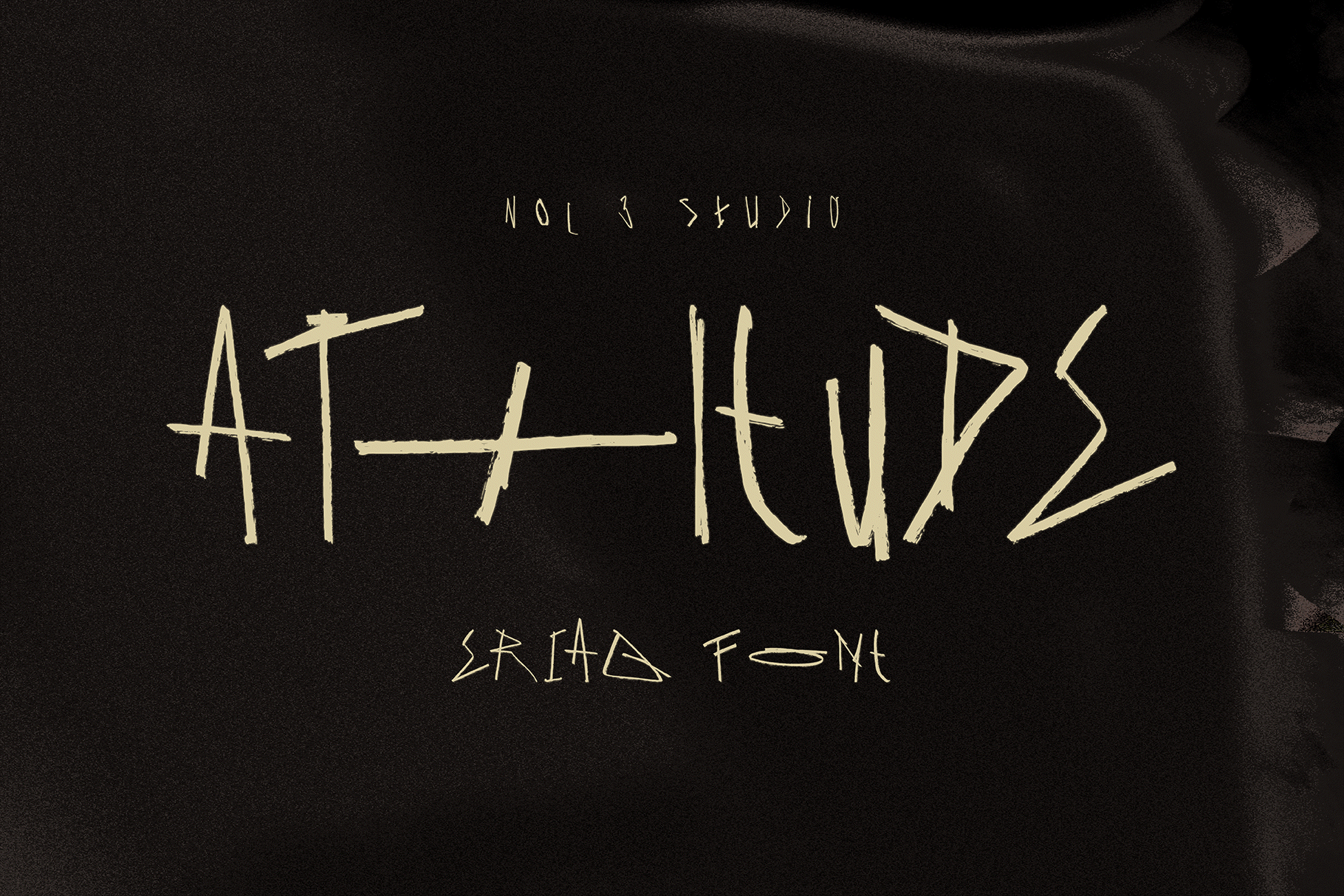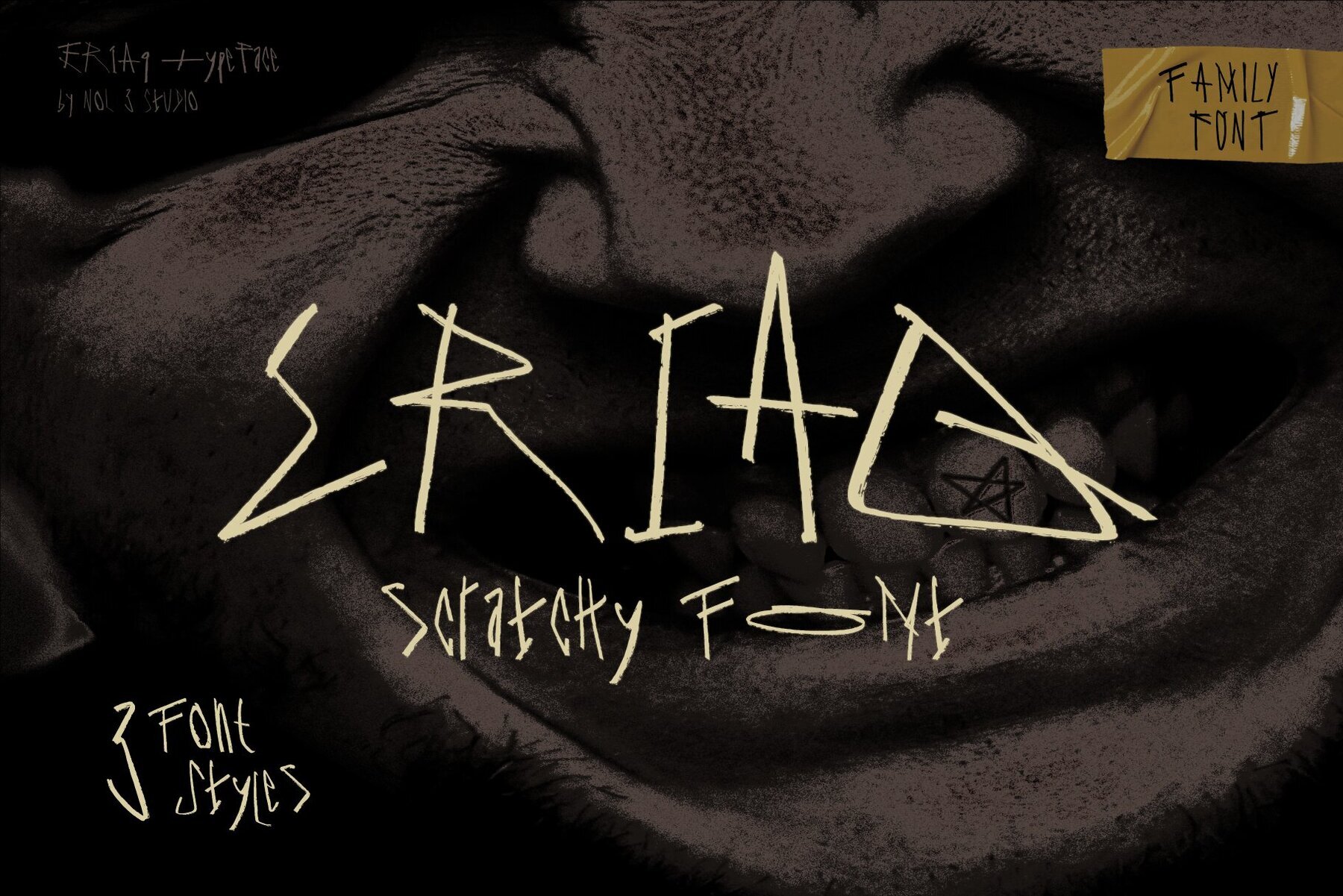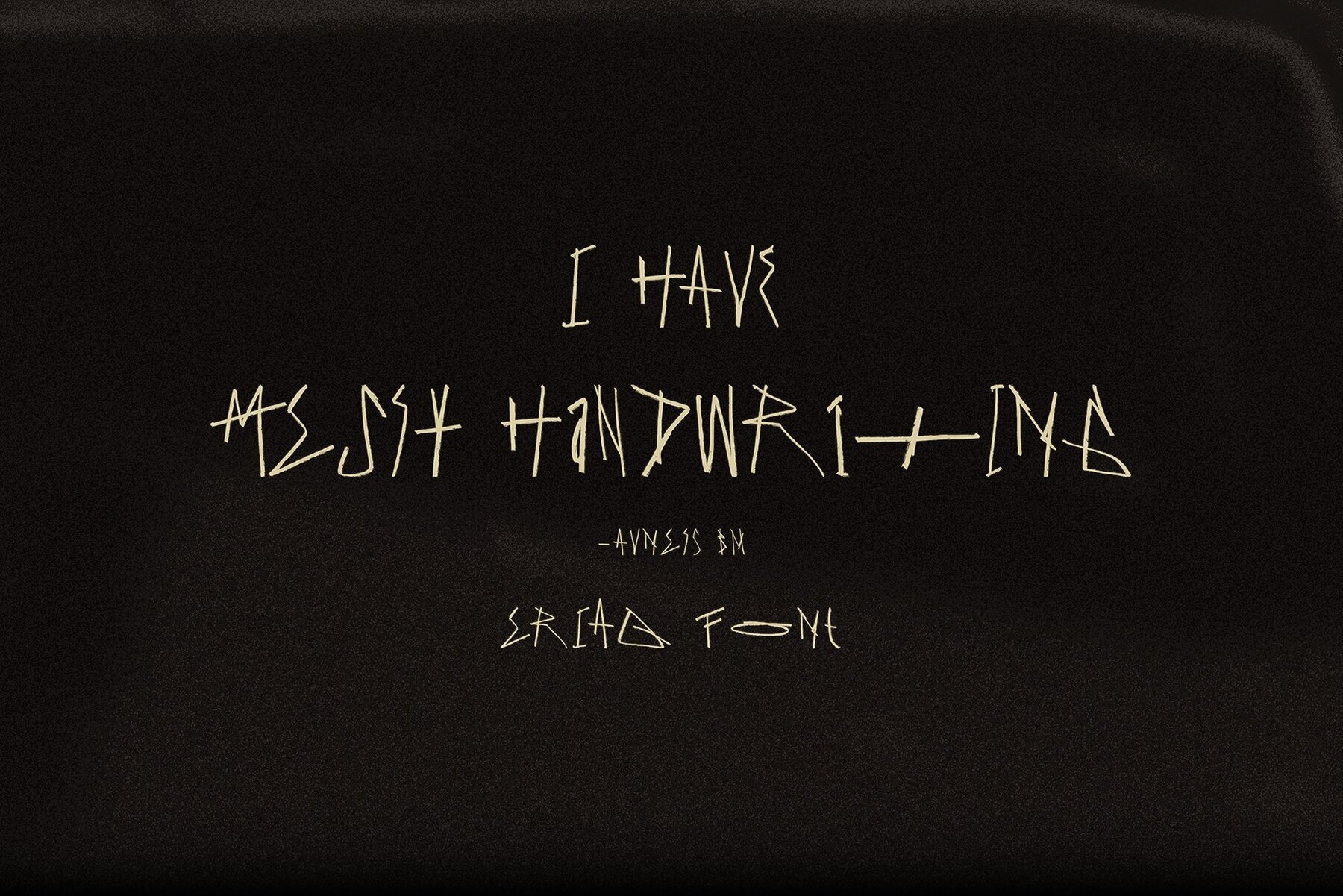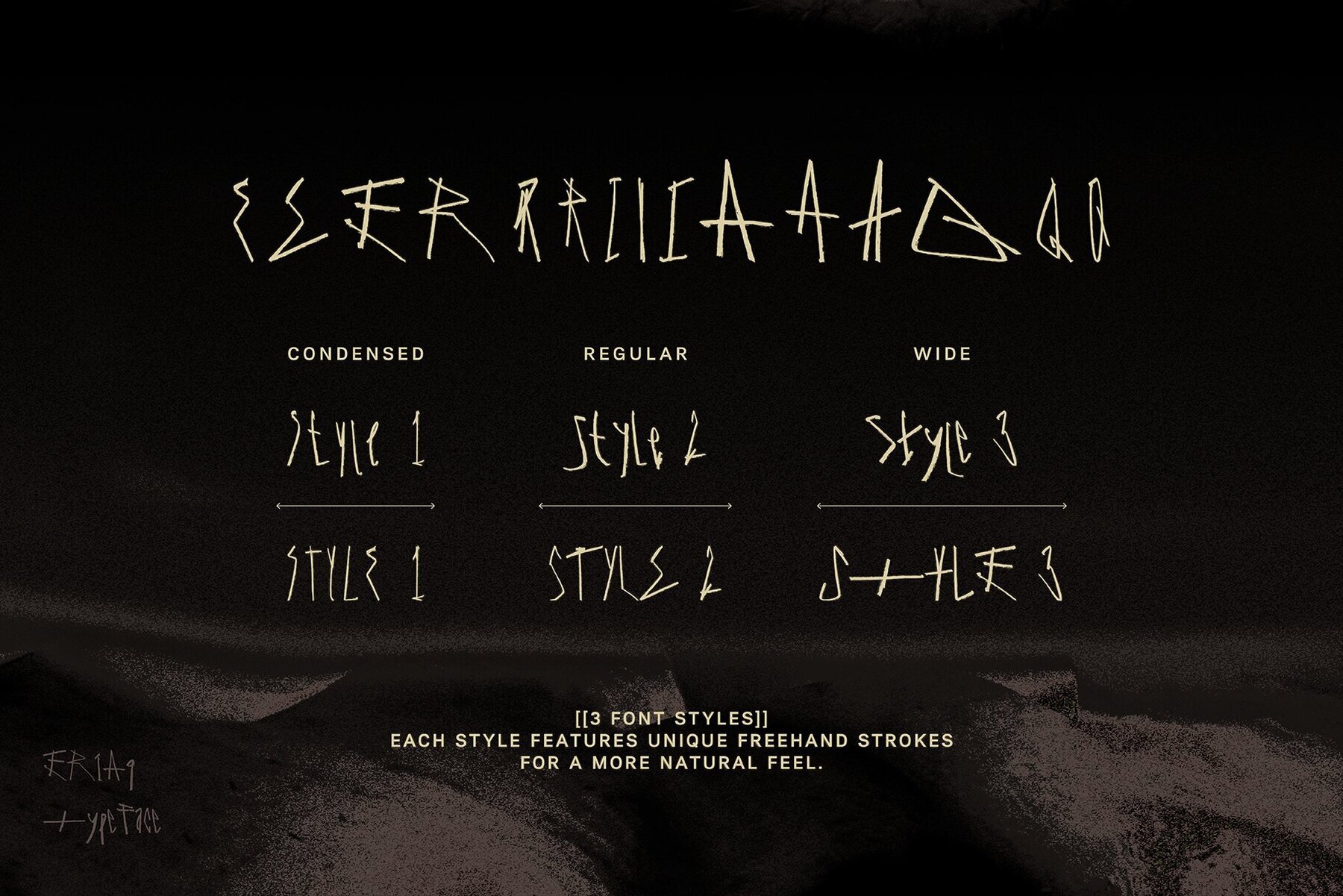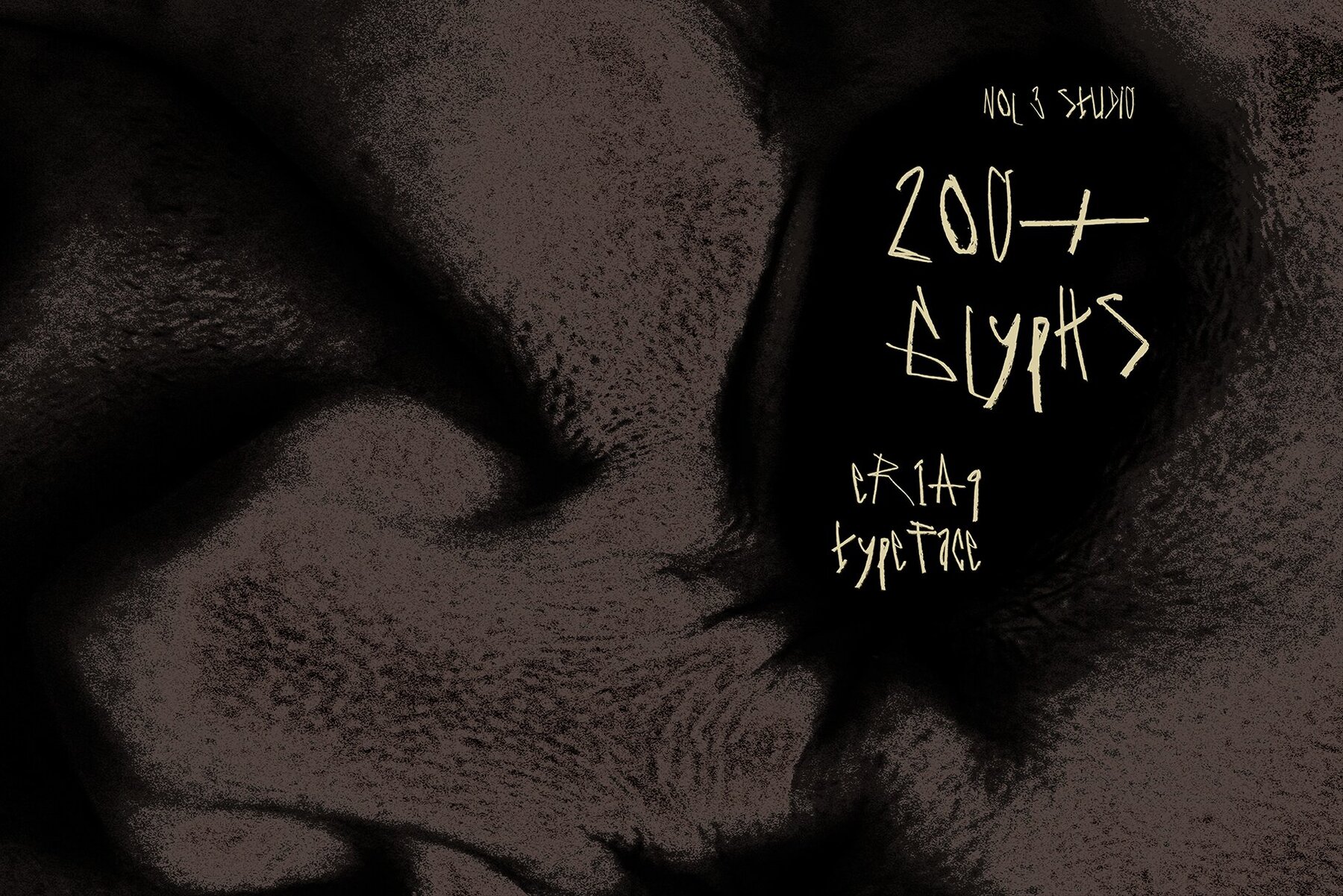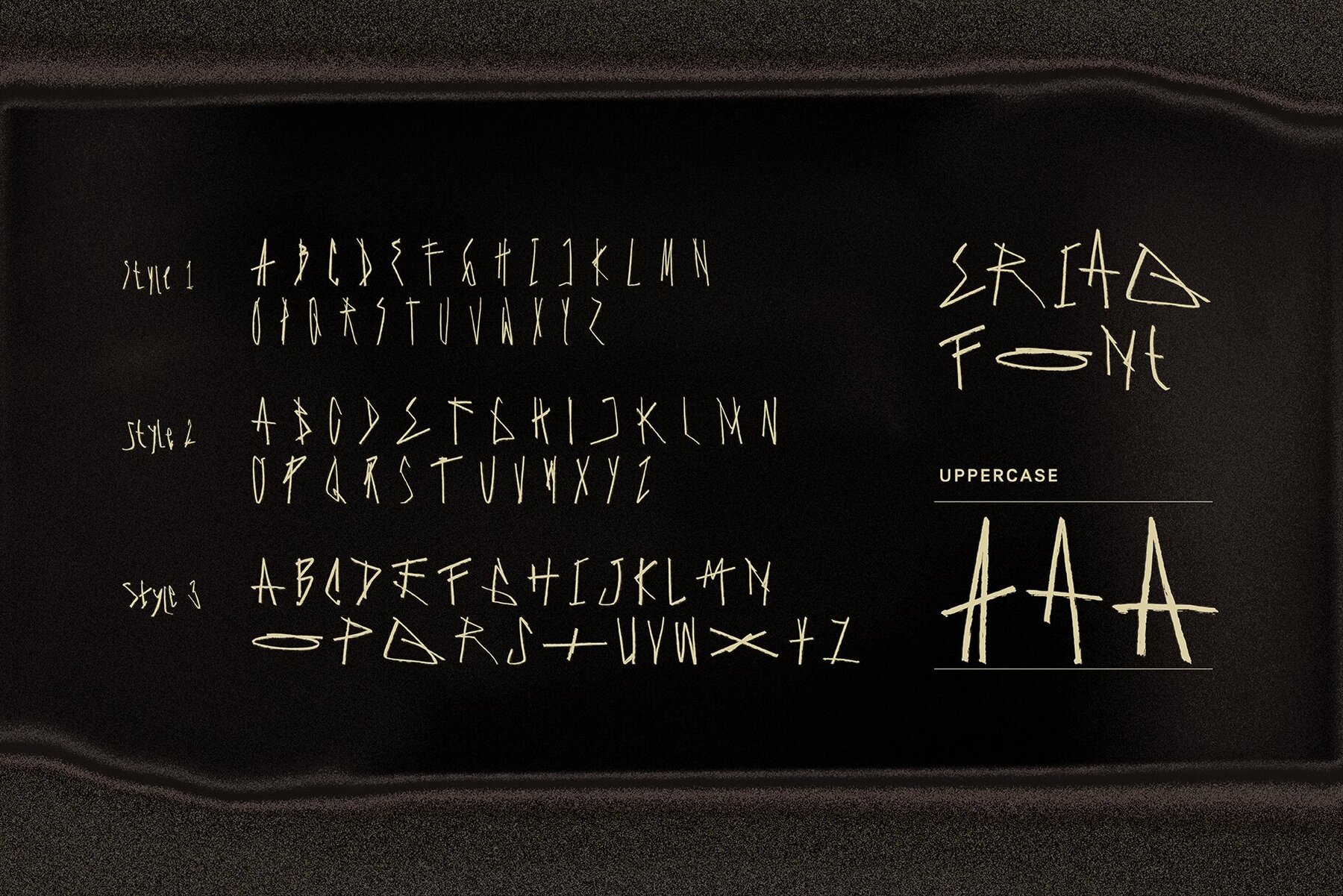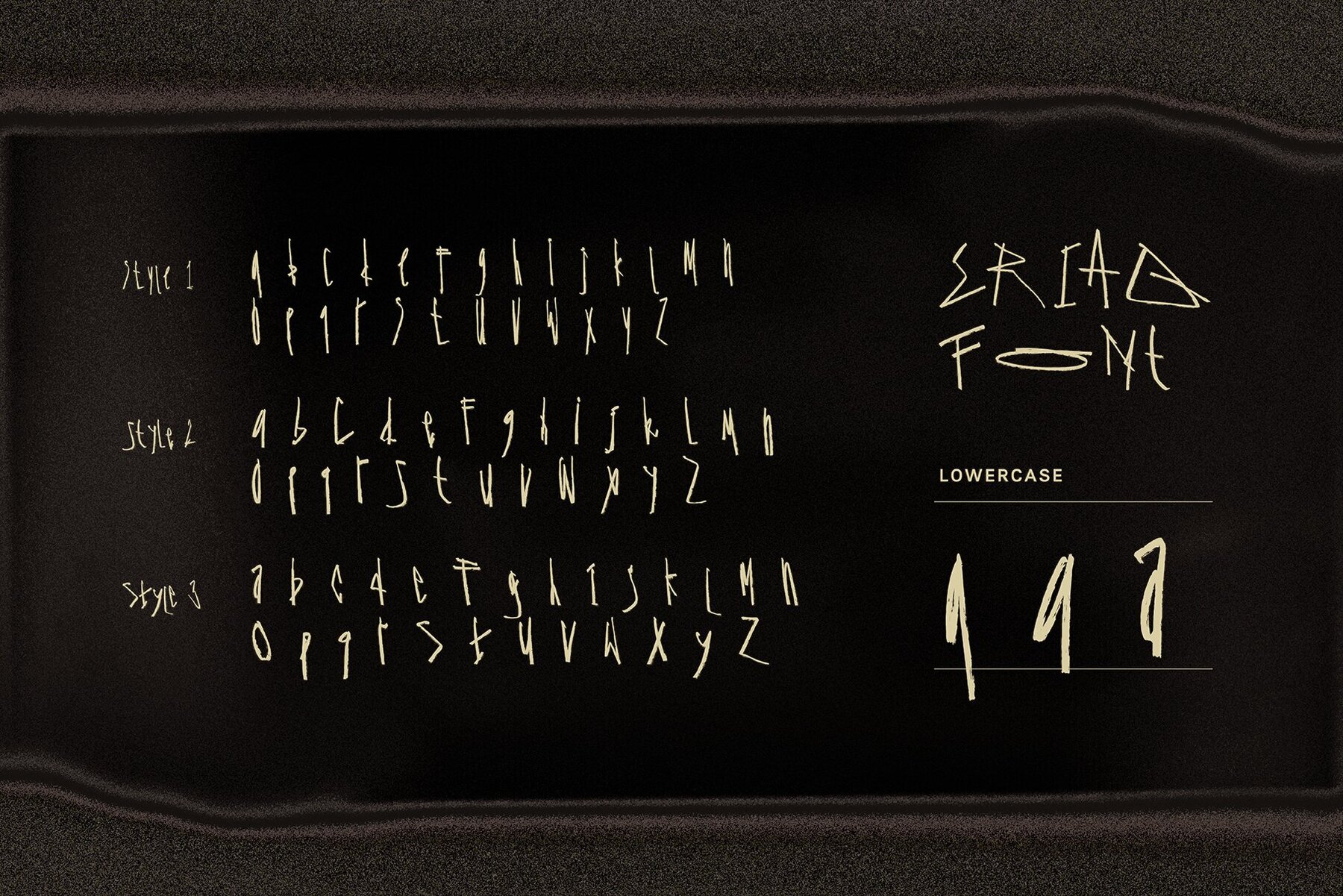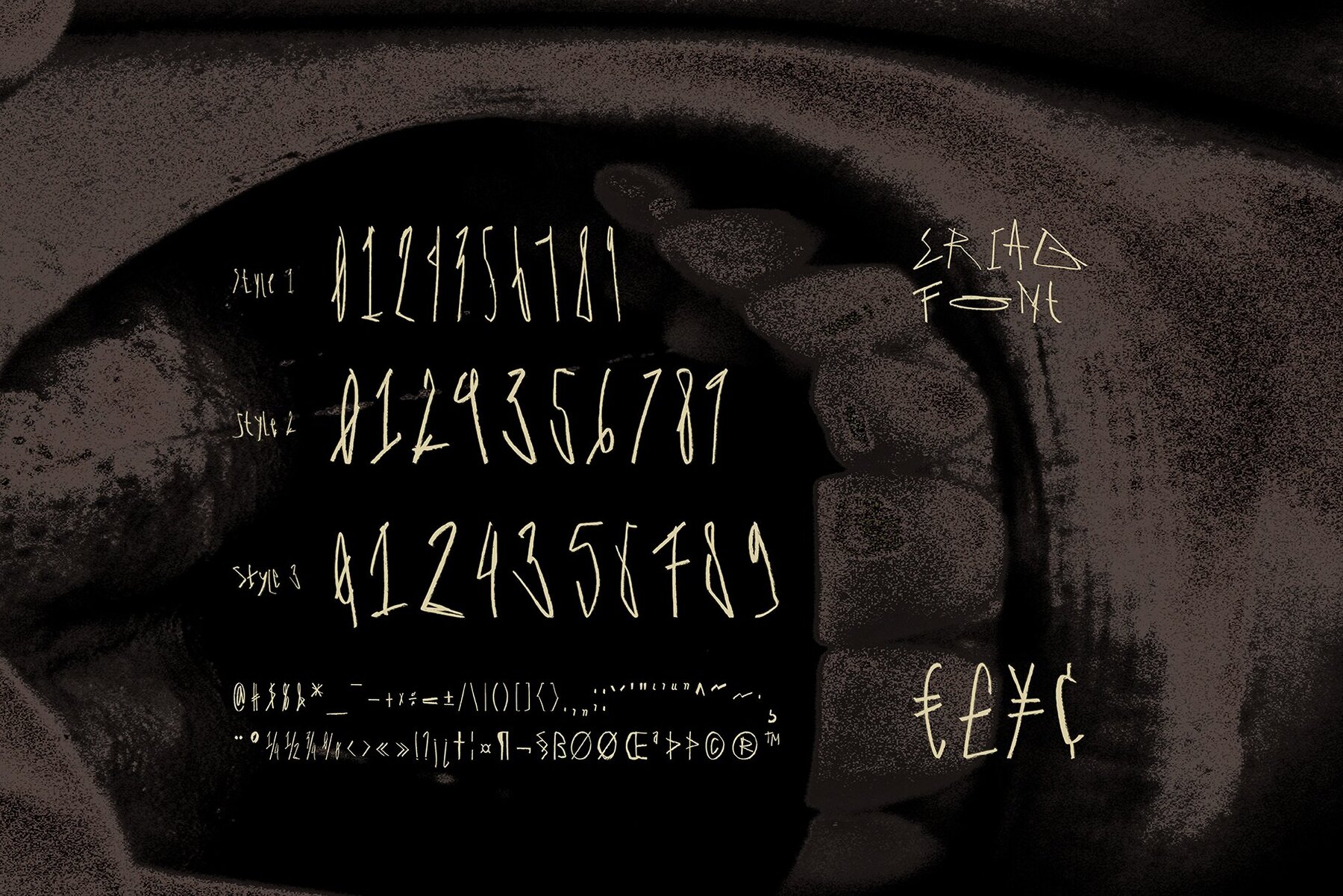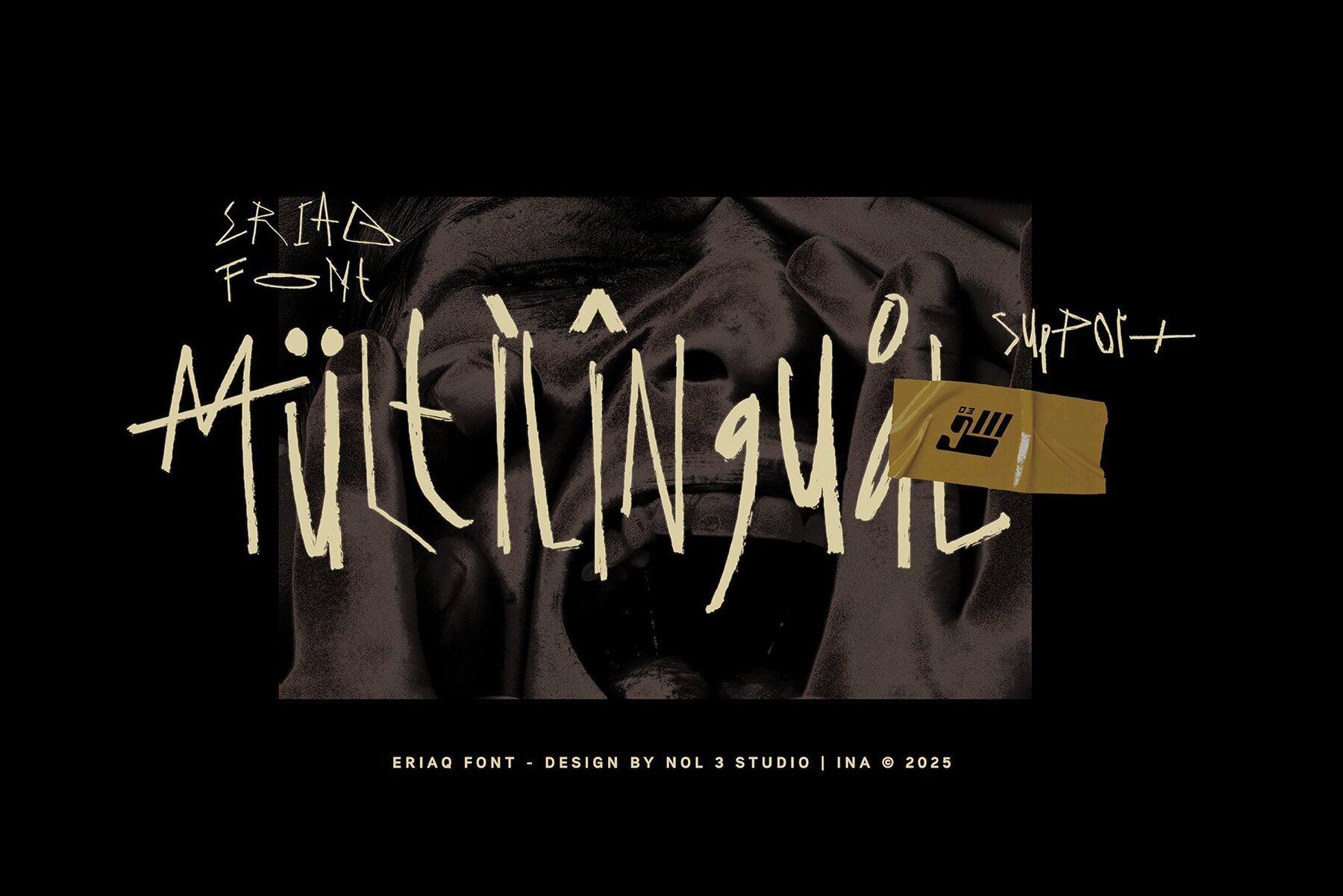
Eriaq Font
ERIAQ | Scratchy Font Family The Font Contains 200+ Glyphs 3 Font Styles Uppercase & Lowercase Numbers & Punctuation Standard Ligatures Multilingual Support Font Manufacturer by NOL 3 STUDIO ©2025
Eriaq is a scratchy handwriting font inspired by raw, rough handwriting and the gritty aesthetic of true crime movies. It features a family of three styles, each with unique freehand strokes for a natural feel. This bold and edgy font adds character to any project, making it perfect for expressive, urban designs.